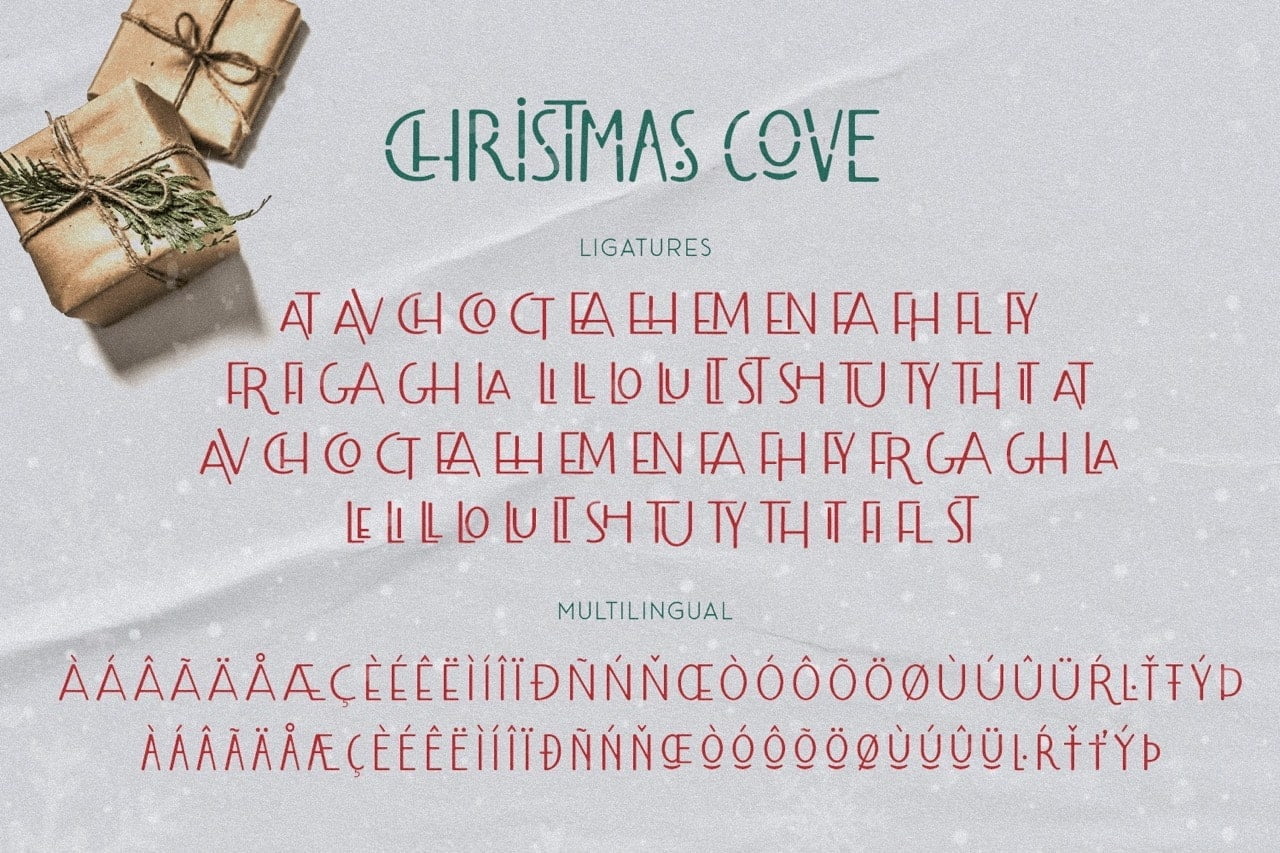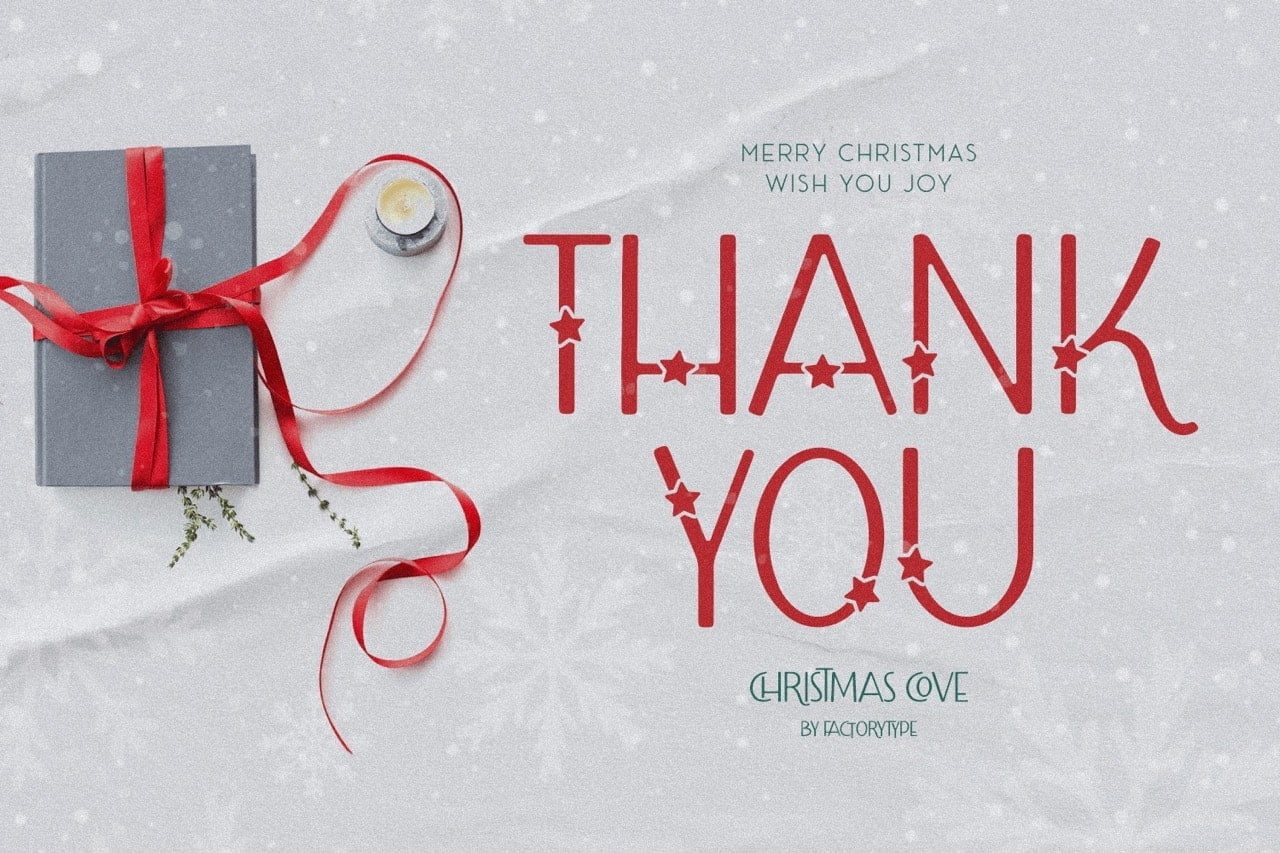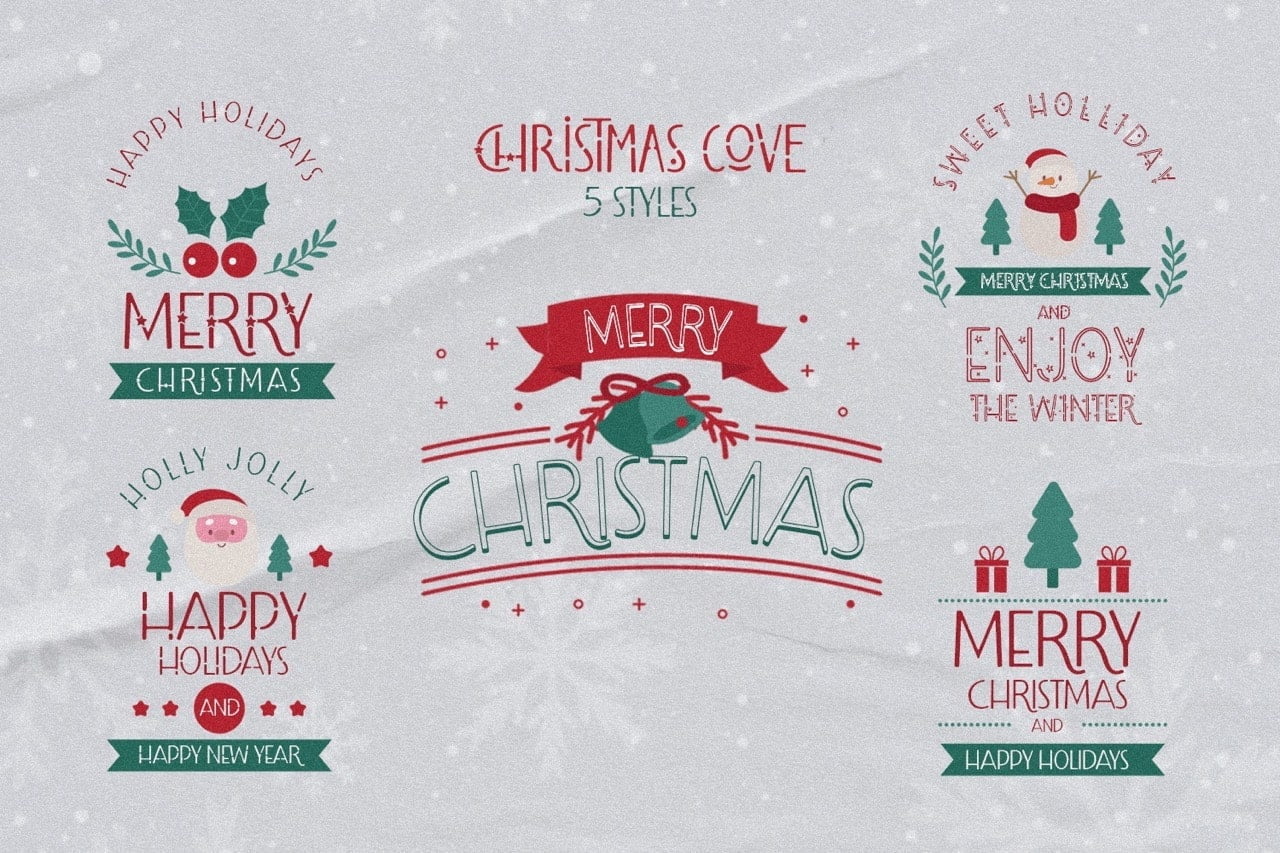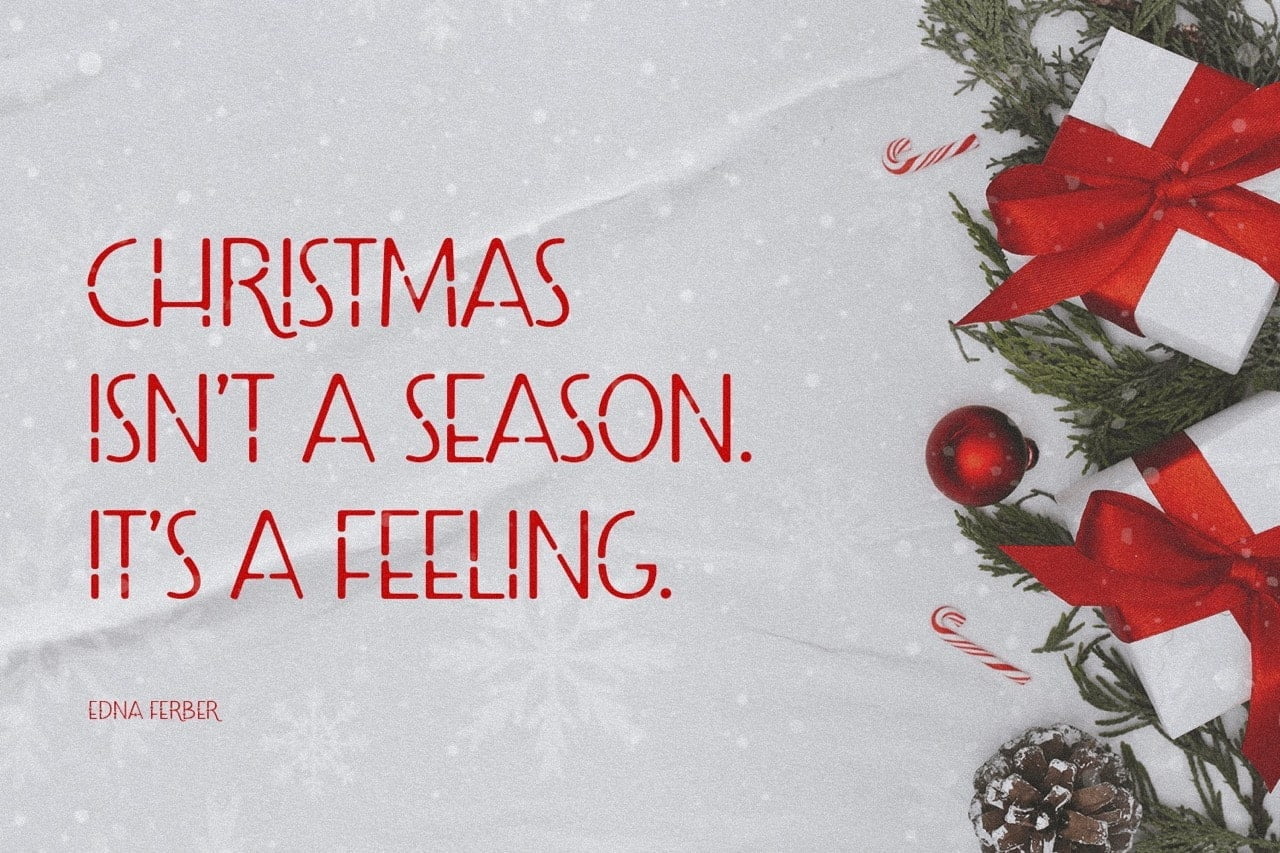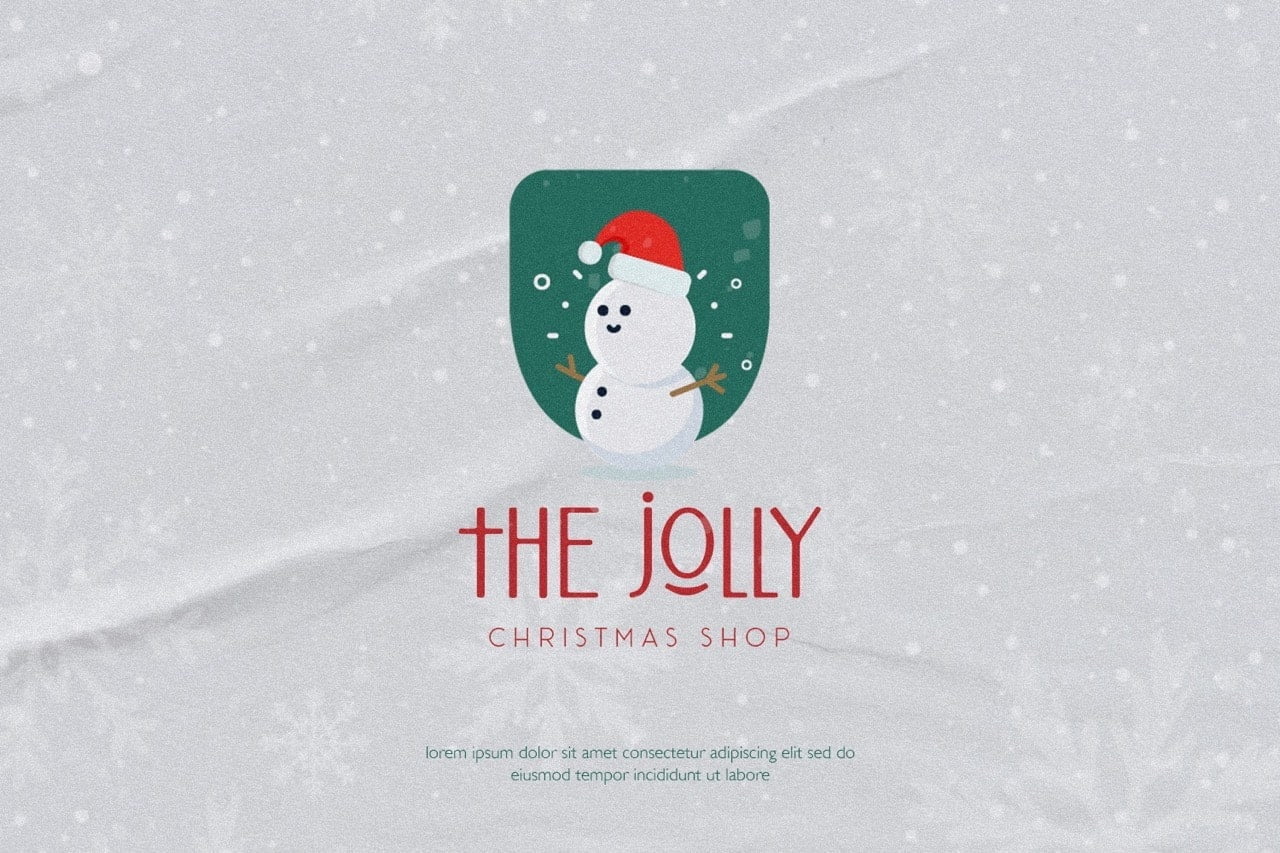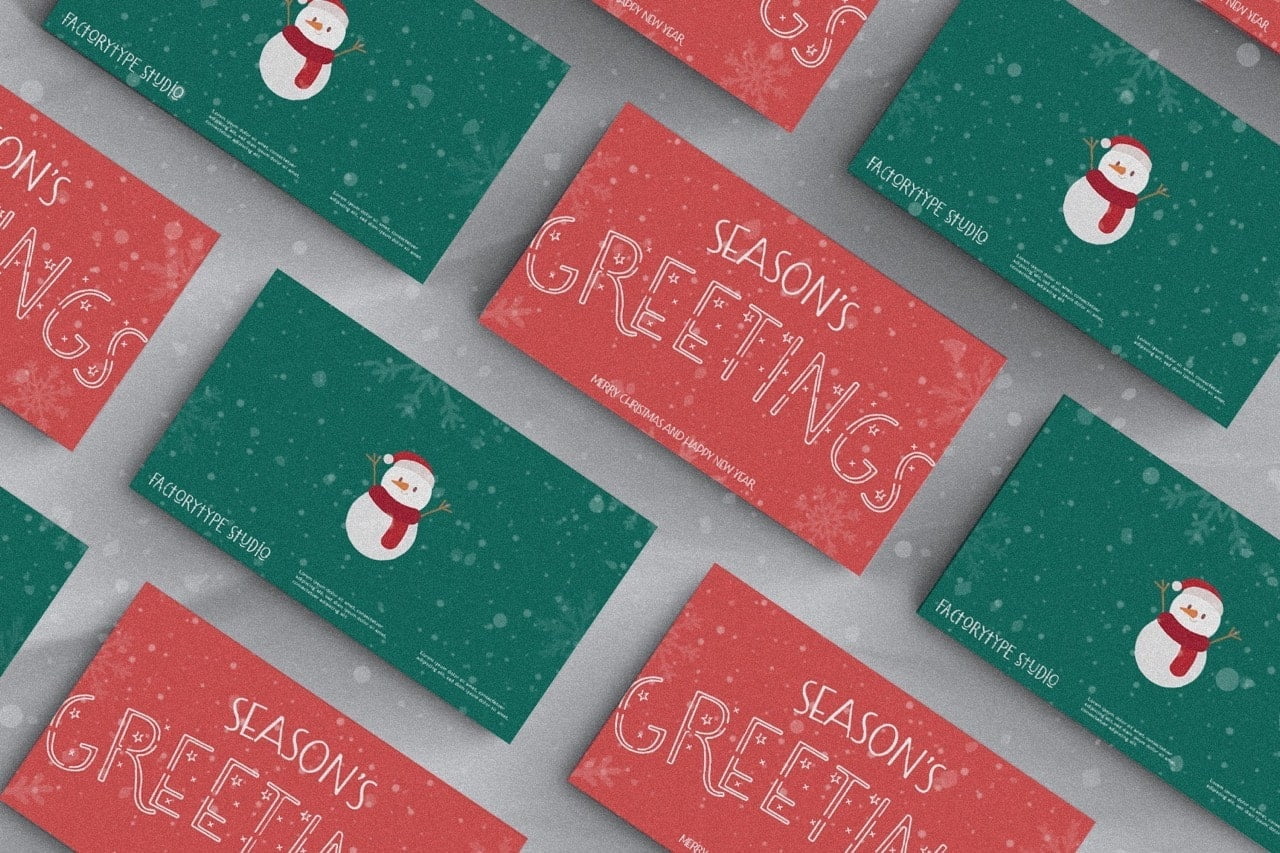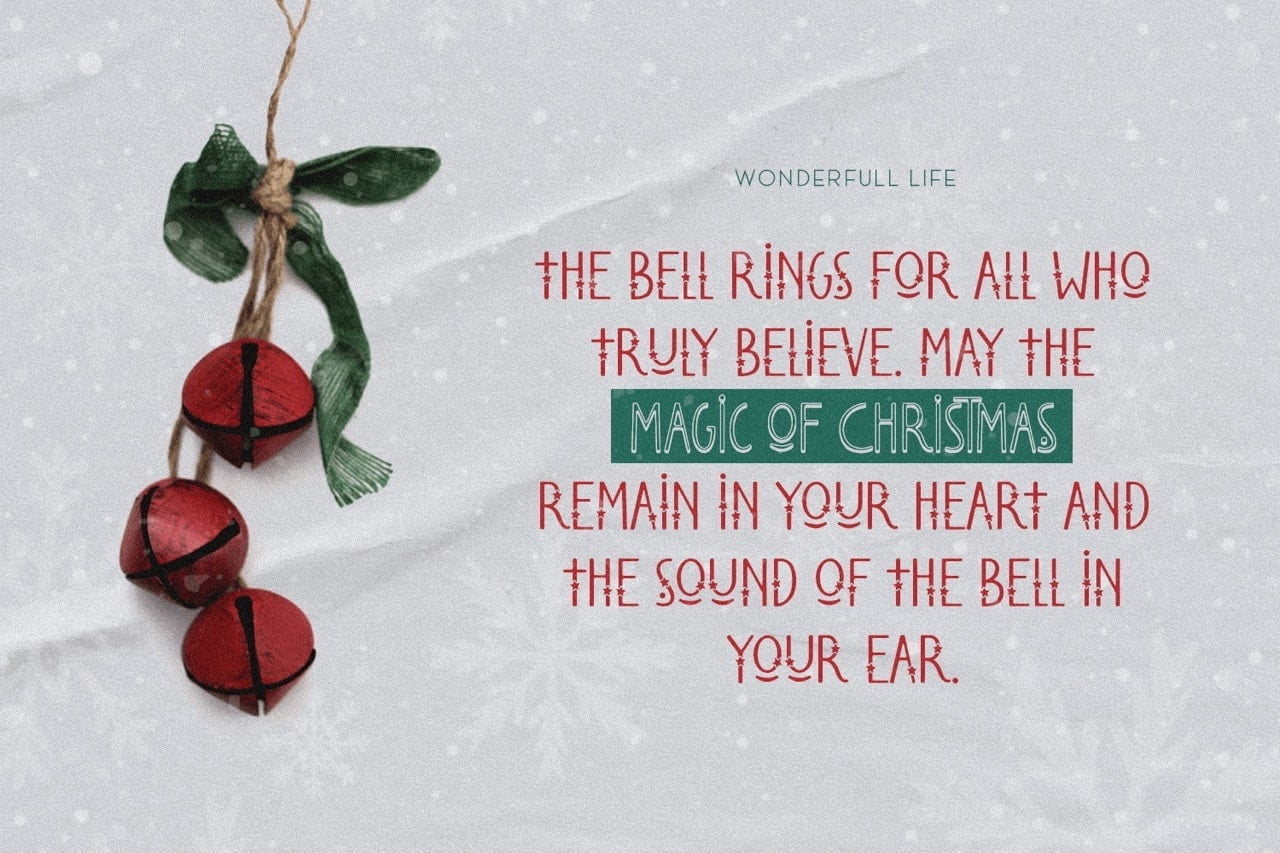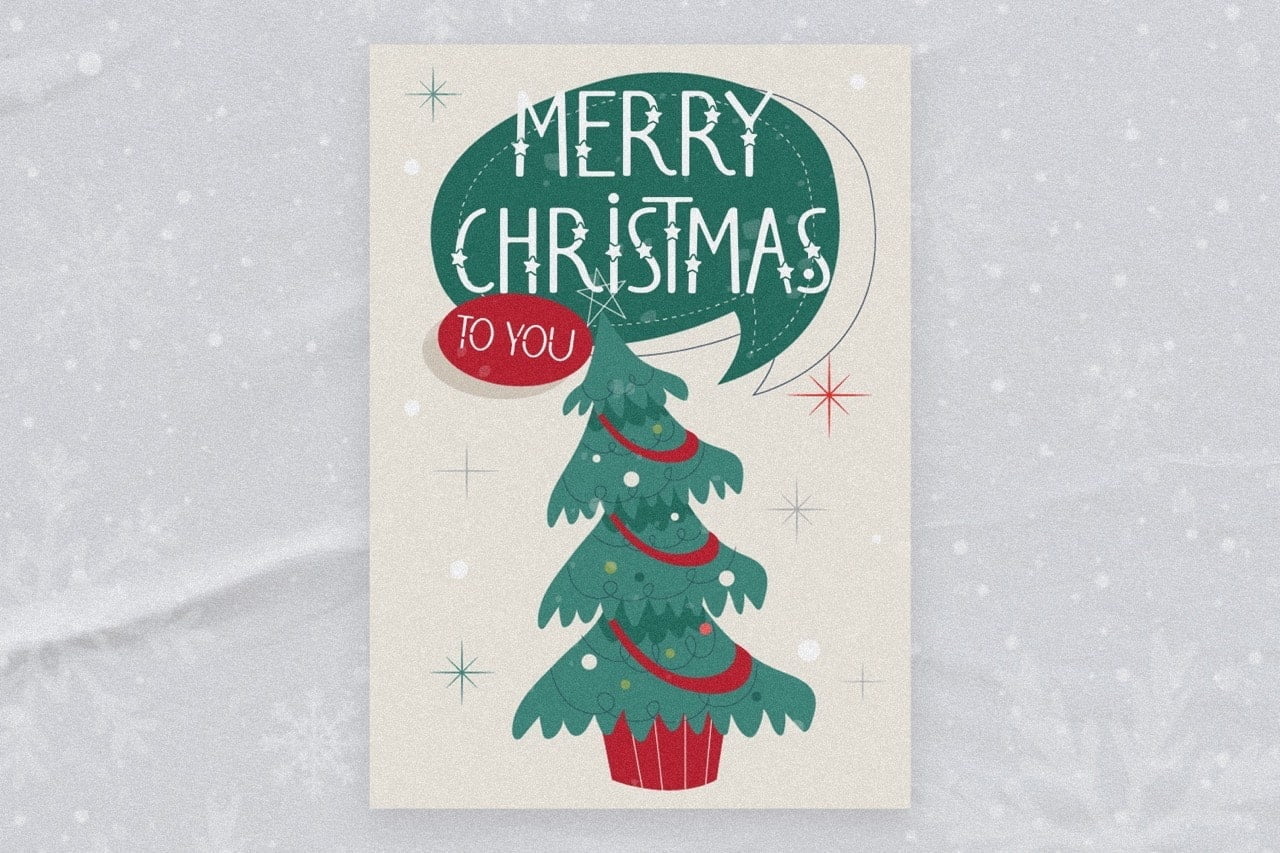
We used to just think of Christmas as a joyful winter season, but we can be feeling festive every year no matter the weather. Christmas Cove is a perfect typeface for sleigh rides and carol singing, with all of the necessary elements, such as numbers, punctuation and multilingual letters. These are just some of the many exciting typographic tools you’ll receive when you download this file. And really – what more do you need?
• 5 Styles (Dancer, Comet, Cupid, Donner, Rudolph)
• Basic Latin A-Z and a-z
• Numerals & Punctuation
• Stylistic Ligatures and Alternate Glyphs
• Multilingual Support for ä ö ü Ä Ö Ü …
Christmas Cove Font